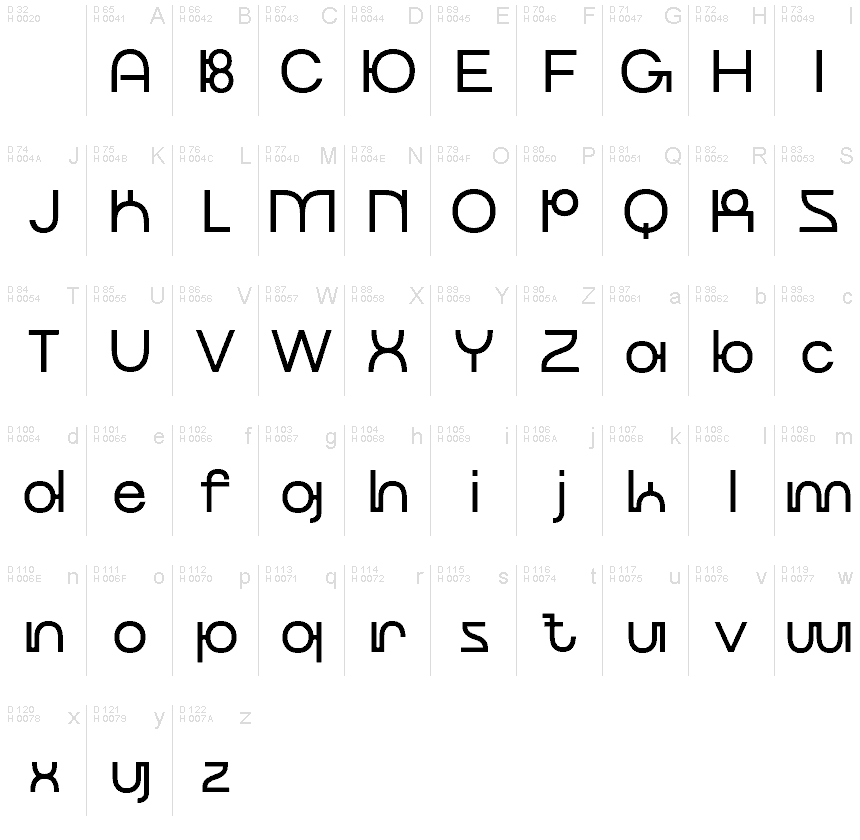
CS Deimos Regular Demo
CS Deimos font by Craft Supply Co. is a sleek, modern geometric display font for futuristic designs and more. It has minimalist clean lines that look absolutely stunning when used on both small- and large-scale formats. With well as good spacing, your projects will surely shine with professionalism at its core.
A free minimalist CS Deimos typeface like this works great in logos, posters, advertisements, banners, car wraps, headlines captions or titles of printed and digital magazines/articles. You could also think about designing stunning website hero sections in almost any niche possible! The font is free so you can start using it right away!